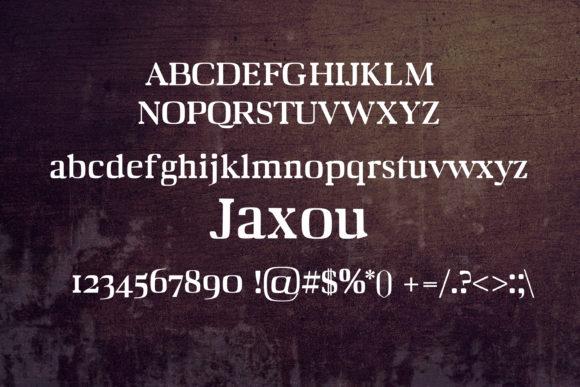
Introduction to Jaxou Font
As a designer, you know that the perfect font can make or break a project. Have you ever been stuck trying to find the right font for your creative project, only to settle for something that just doesn’t feel quite right? We’ve all been there.
That’s why we’re excited to introduce you to the Jaxou Font, a friendly and modern serif font that’s sure to bring a touch of elegance to any design. With its unique style and versatility, this font is perfectly suited for a wide variety of projects, from branding and marketing materials to digital products and more.
Key Features of Jaxou Font
- High-quality design for creative projects, offering a unique and stylish look.
- Unique characteristics include its modern and elegant design, making it perfect for branding, logos, and typography projects.
Honest Review: Jaxou Font
- High-quality typography: The Jaxou Font boasts crisp and clear typography, making it perfect for a variety of creative projects.
- Customizable: The font’s versatility makes it easy to adapt to different design styles and requirements.
While the Jaxou Font has been a great asset, I did encounter some limitations. The font family is relatively small, which may limit its use in large-scale projects. Additionally, the font’s legibility may not be ideal in very small sizes.
Overall, I’m quite impressed with the Jaxou Font. Its high quality, transparent background, and customizable options make it a valuable resource for any designer. While it may not be perfect, it’s definitely worth considering for your next creative project.
The Jaxou Font is commonly used in logos, social media posts, presentations, and documents. It’s a high-quality font that can be used in various design projects. With its transparent background, it’s easy to use in presentations or documents.
To get the most out of the Jaxou Font, use it in conjunction with other design elements, such as graphics and images. Experiment with different font sizes, colors, and styles to create a unique design. The Jaxou Font is a versatile design resource that can be used in a variety of creative projects.